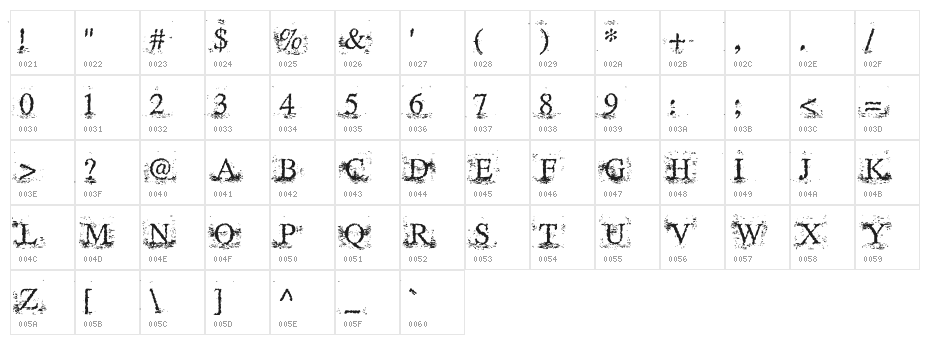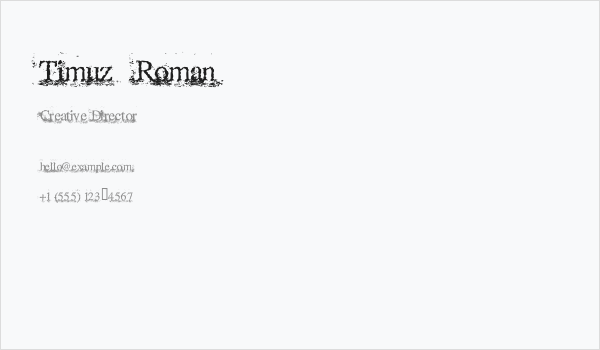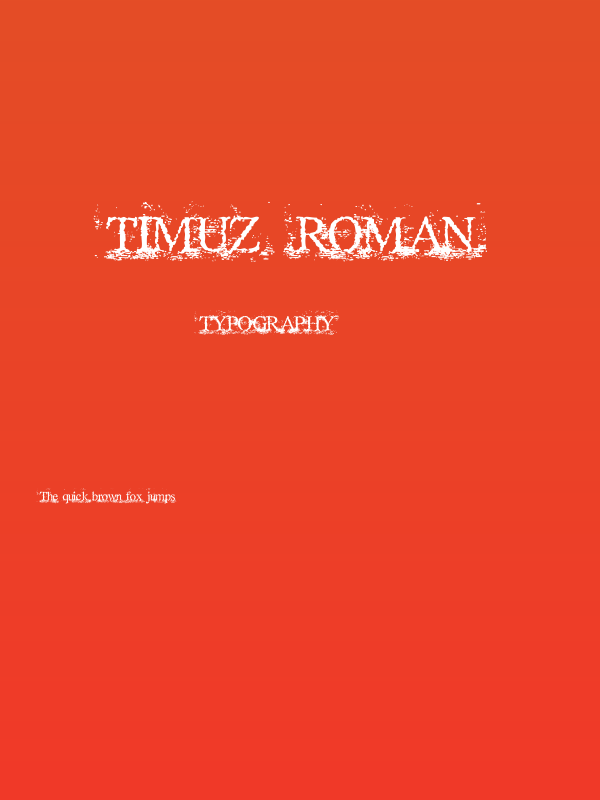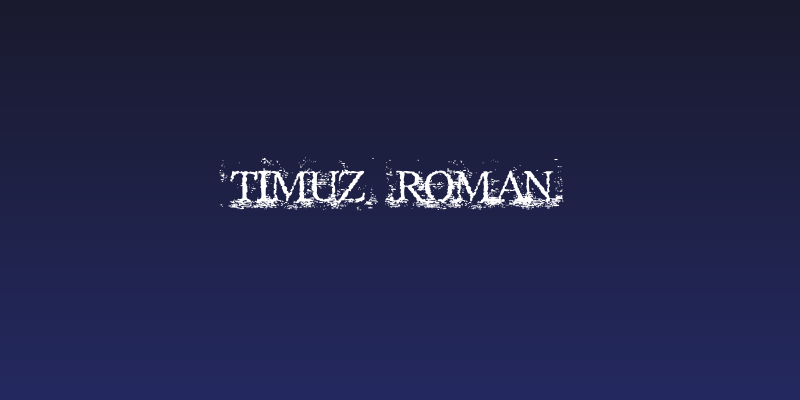
Timuz Roman Font
| Caso d'uso | Headlines, Logos, Decorative text |
| Progetti proposti | Ideal for vintage posters, album covers, book titles, and branding that requires a rustic or historical touch. |